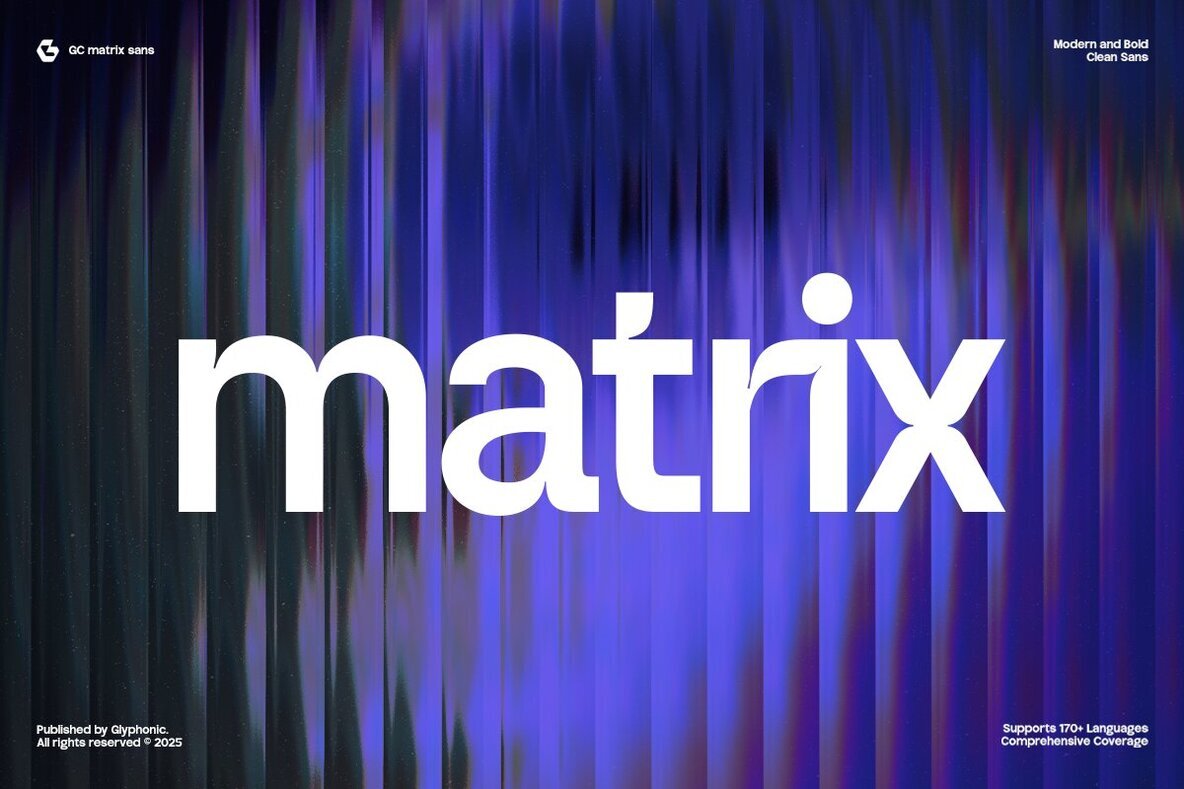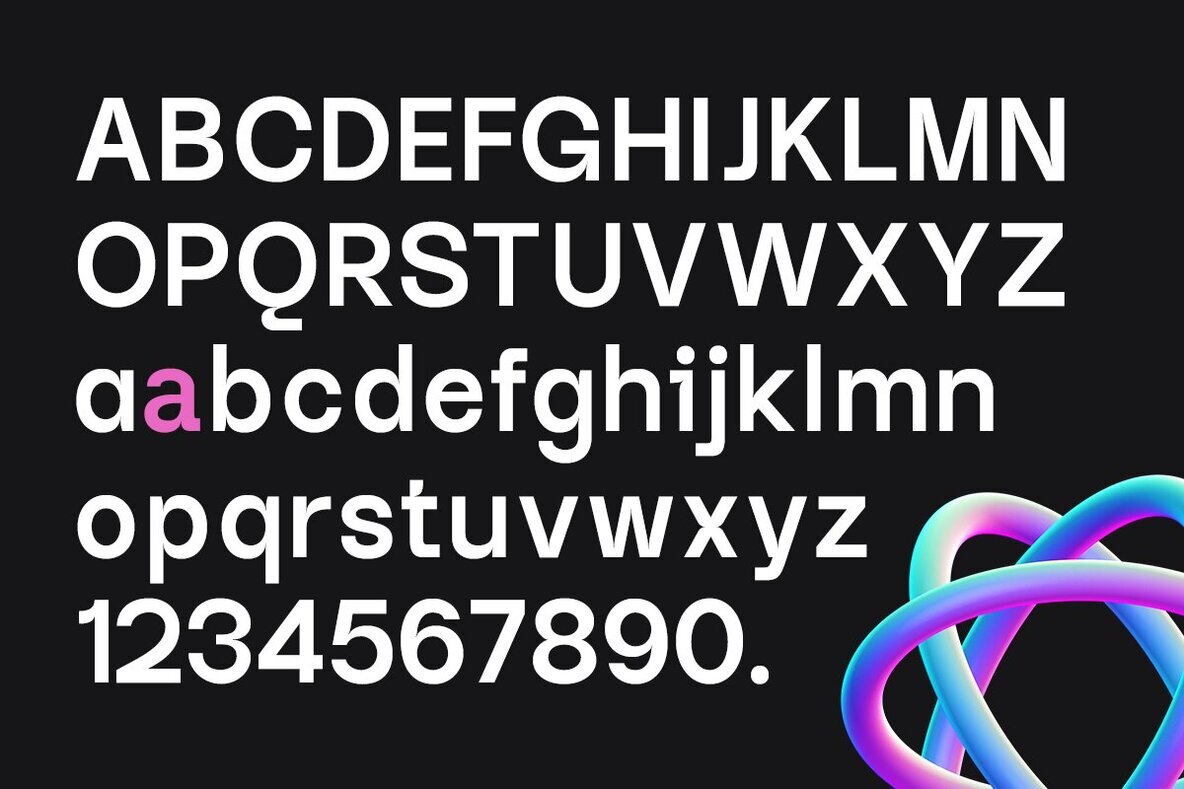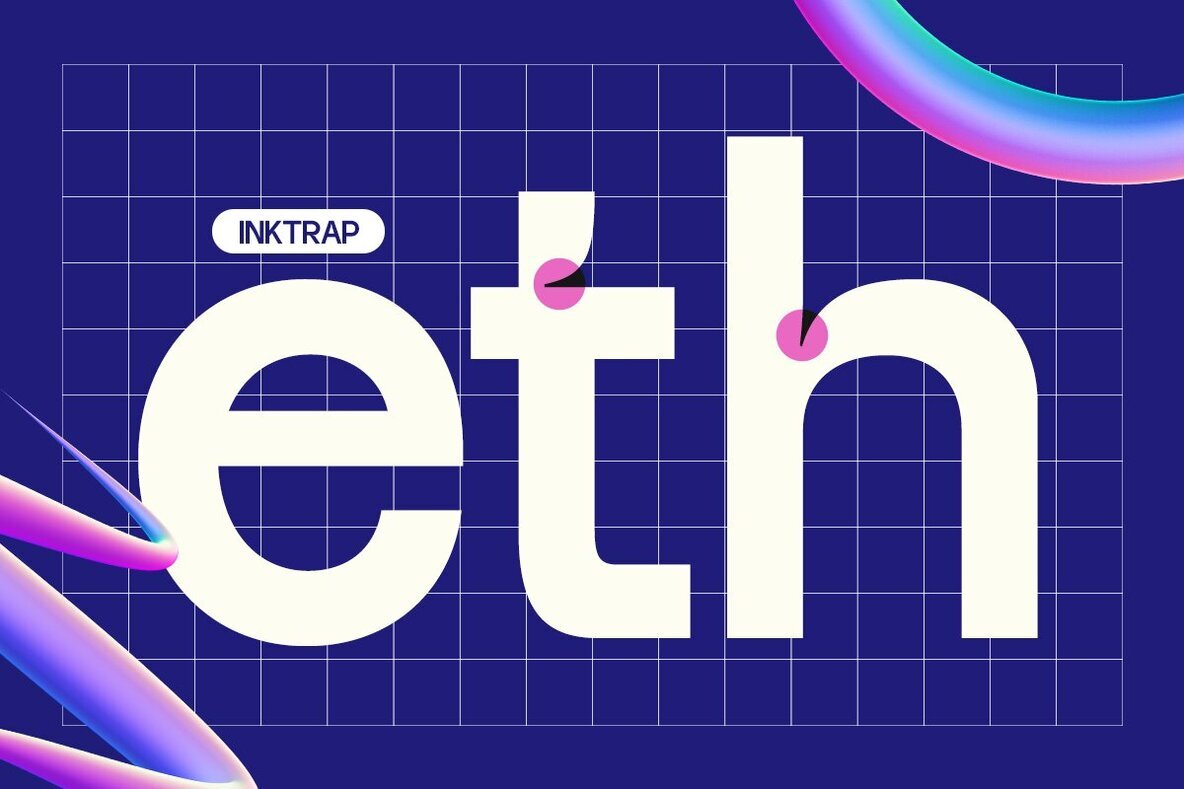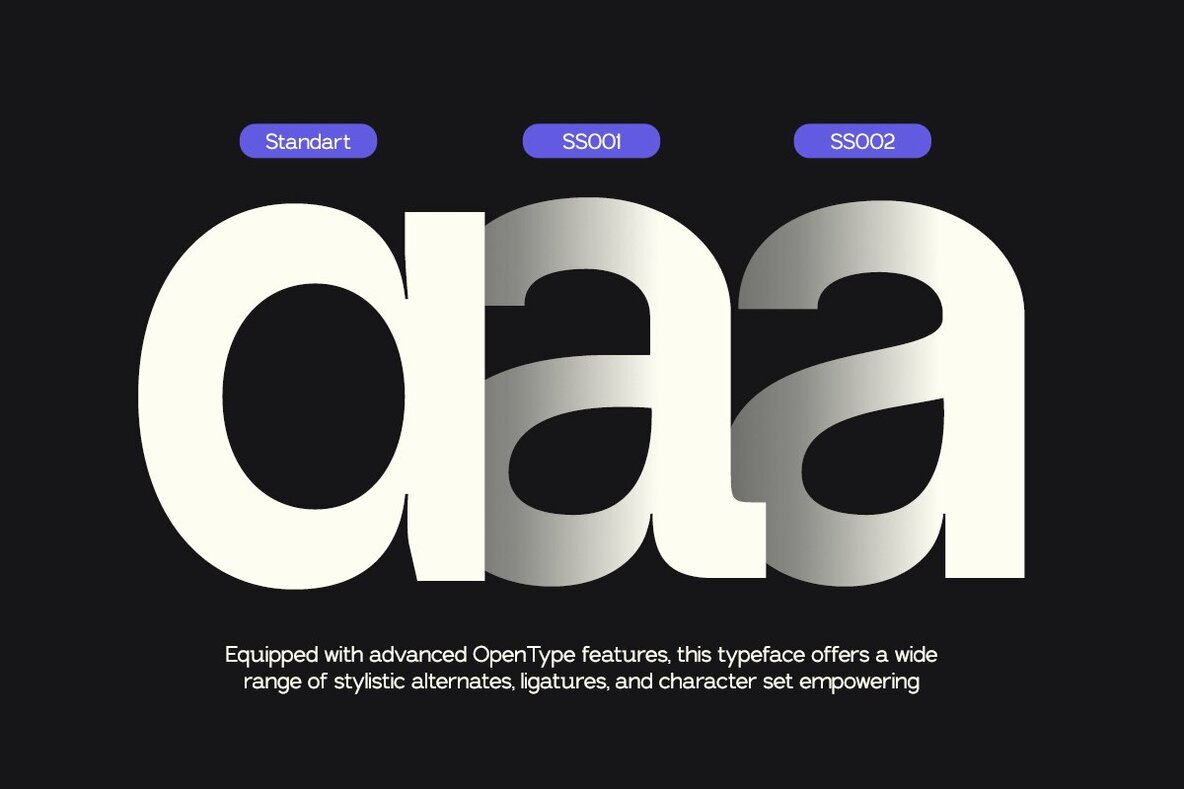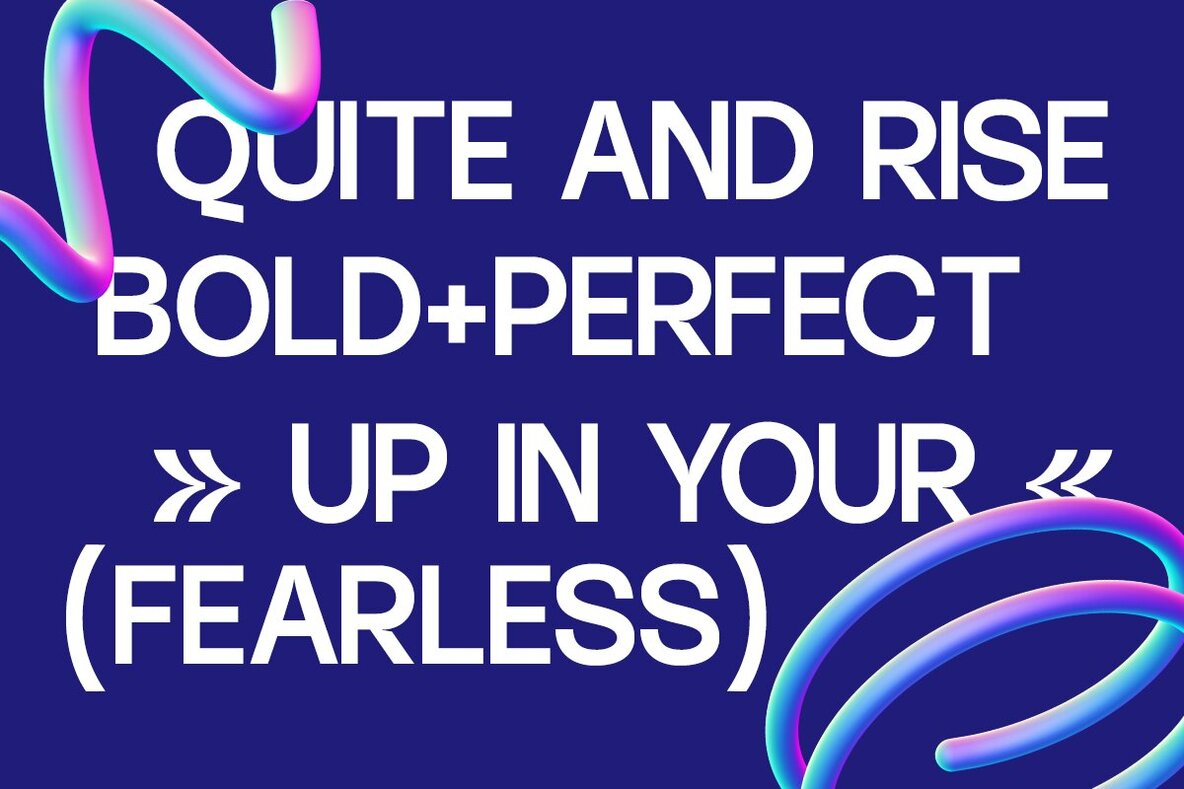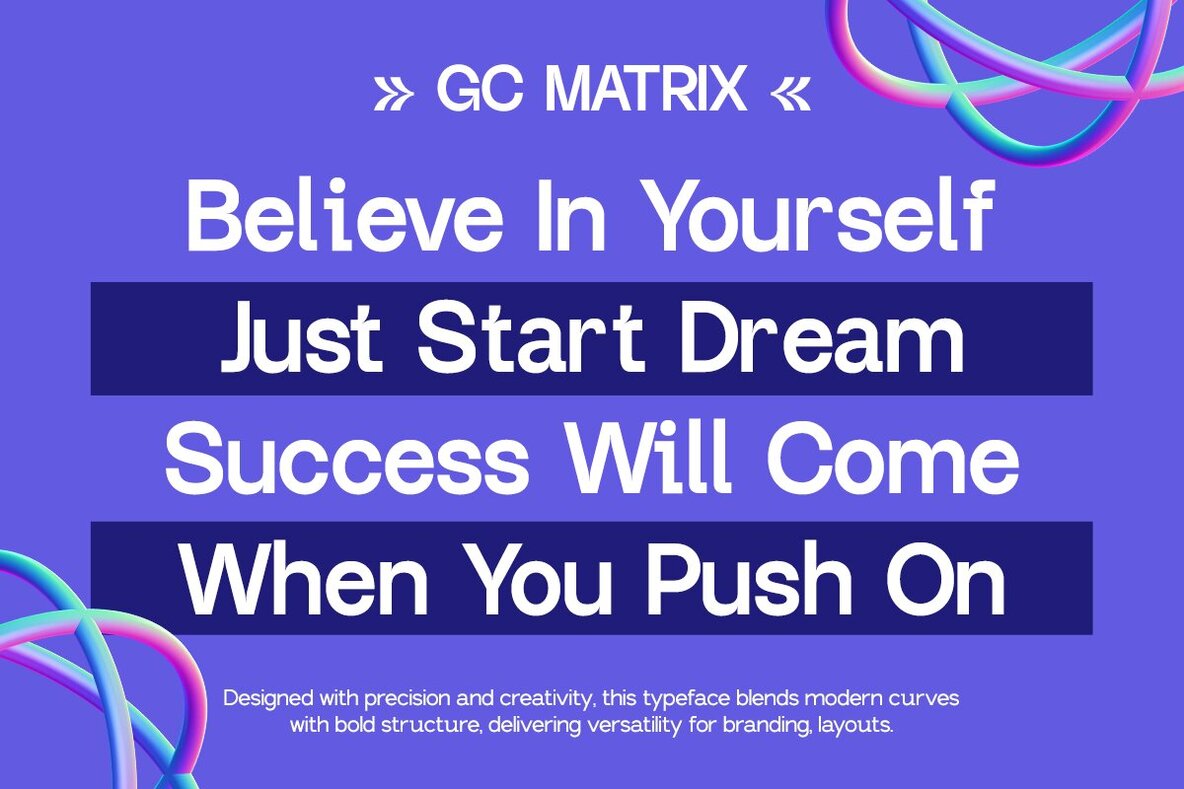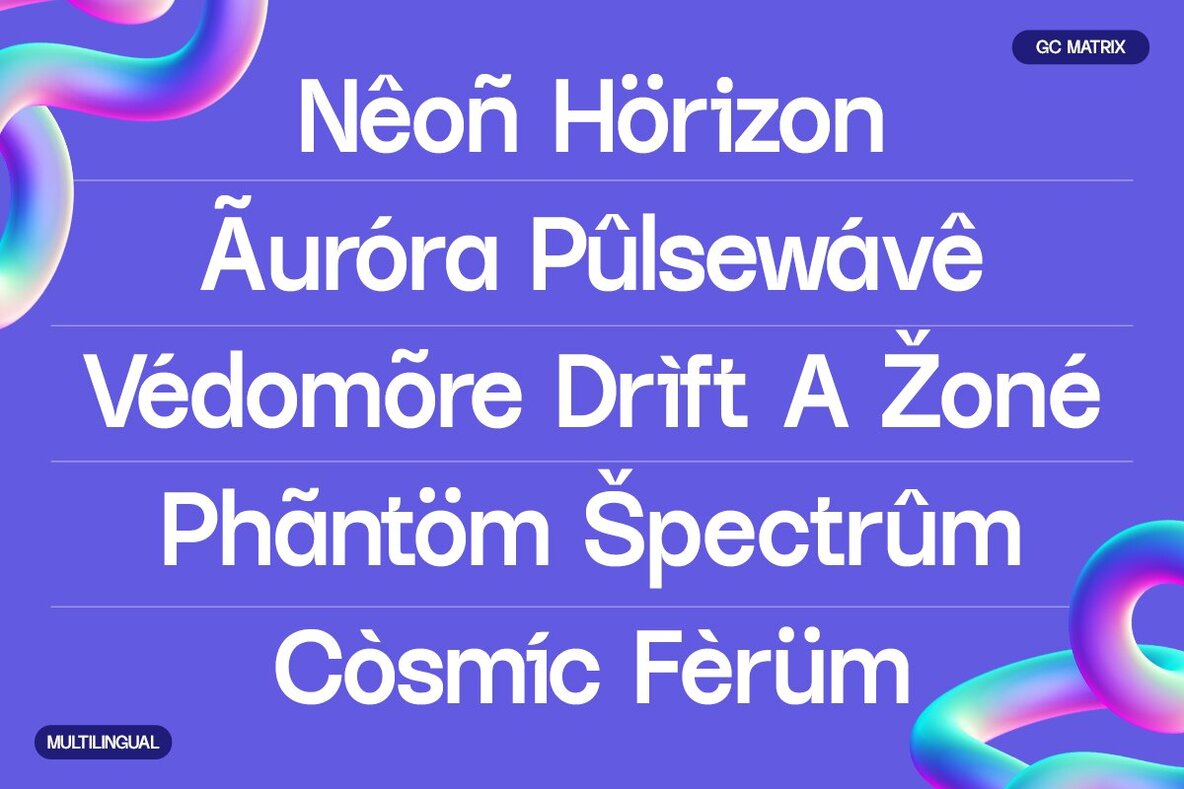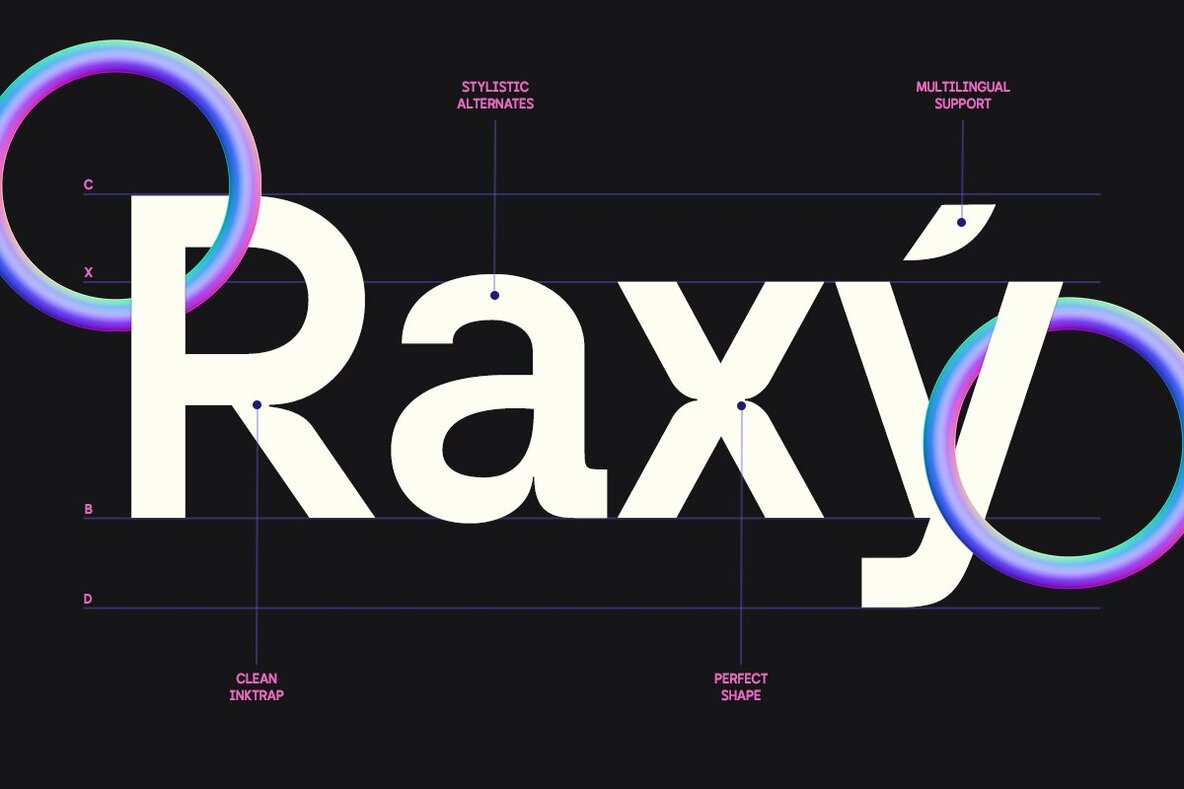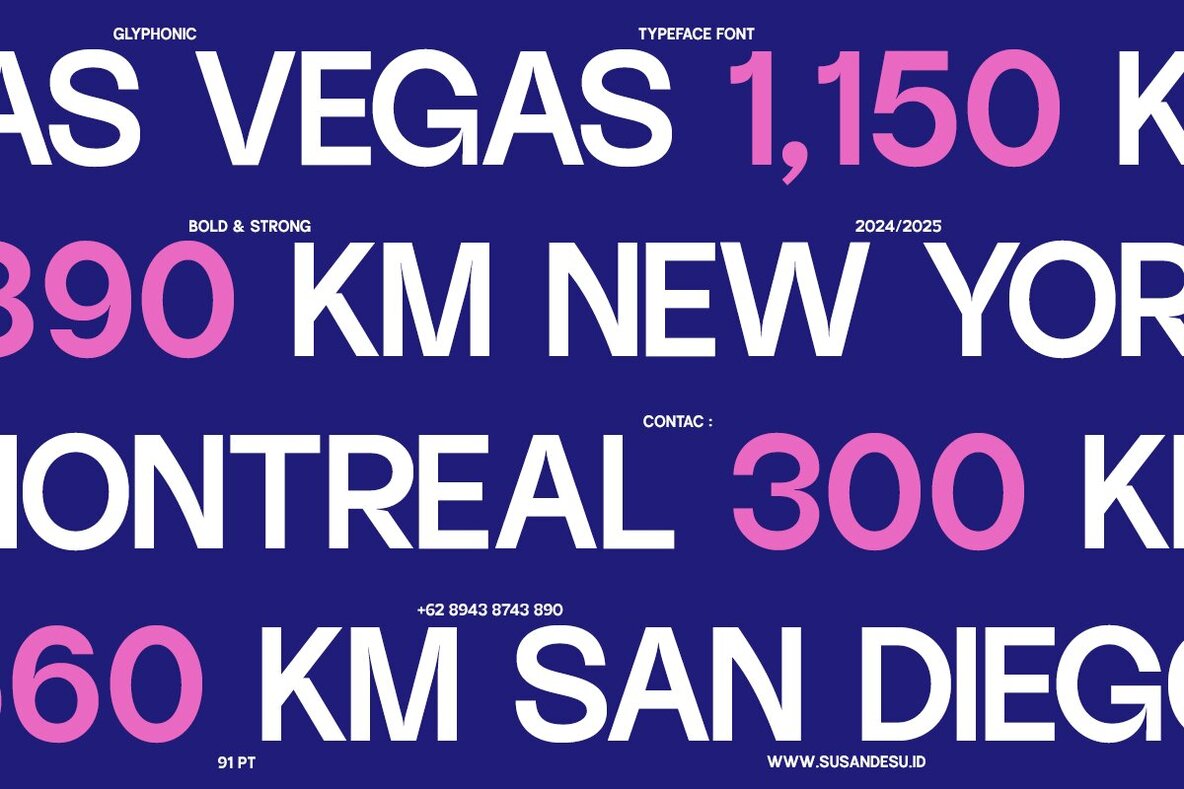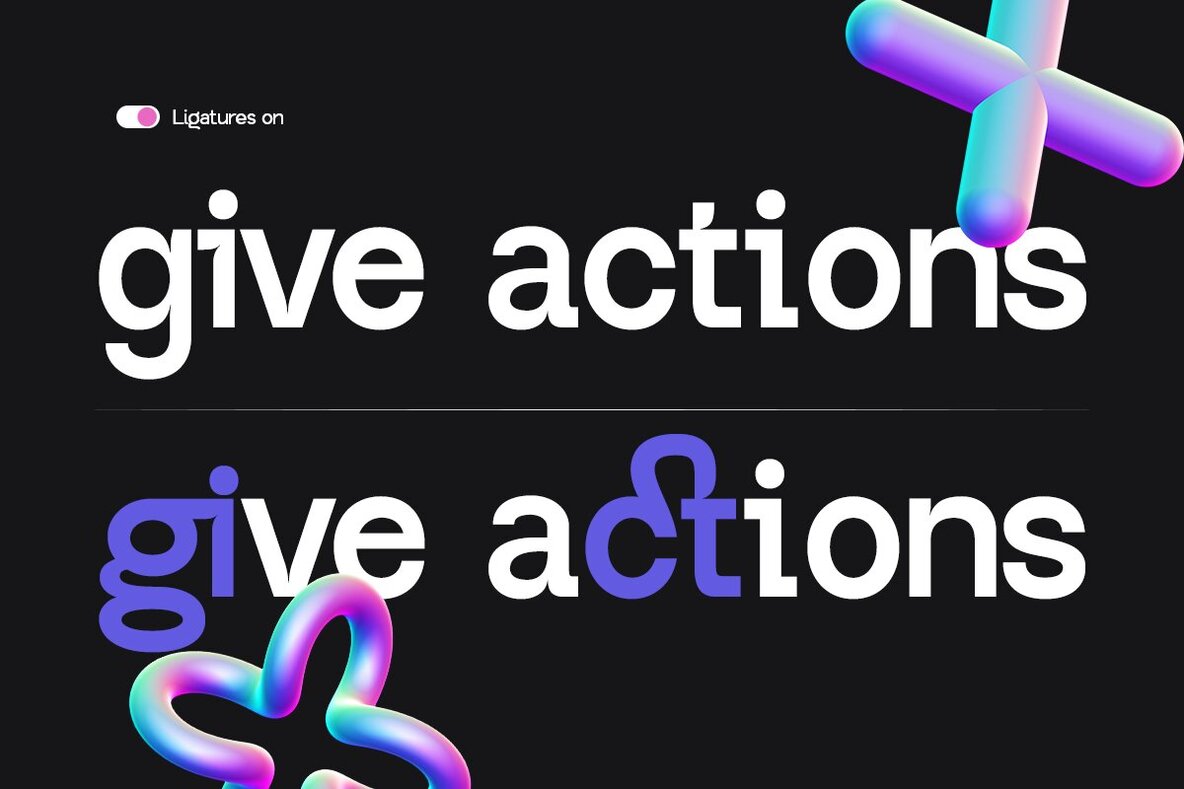
GC Matrix Font
GC Matrix Bold
GC Matrix Sans is a contemporary sans serif typeface, celebrated for its clarity and robust versatility. Its clean geometric design and bold strokes offer a confident presence suitable for both digital and print media. This typeface embodies simplicity without sacrificing character, making it ideal for branding, editorial layouts, tech-inspired projects, and striking visual identities. With balanced proportions and precise detailing, GC Matrix Sans remains both adaptable and distinctive. It excels in sleek interfaces, bold headlines, and minimalistic posters, adding a sense of power, modernity, and elegance to your typographic endeavors. Features:GC Matrix Sans: Bold Modern Simplicity